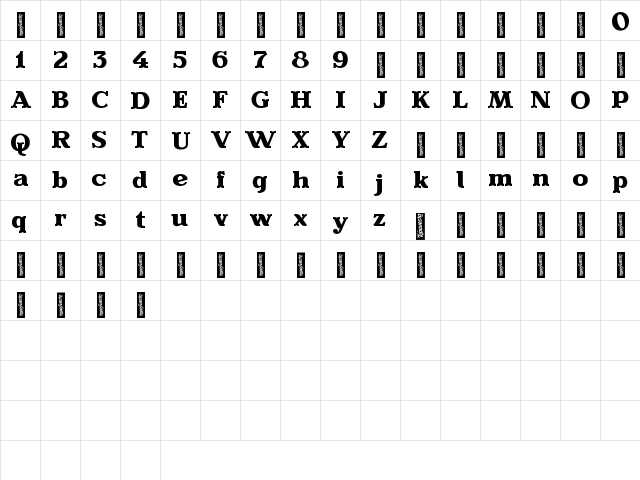
Evereast Serif Regular
| Designer | Farhan Sudibya |
Design Context for Evereast Serif Typeface
Evereast Serif brings classic typographic sensibility to the table — its serifs and measured letterforms reflect centuries of print heritage.